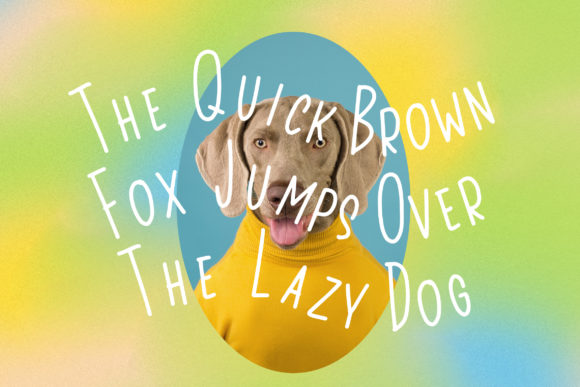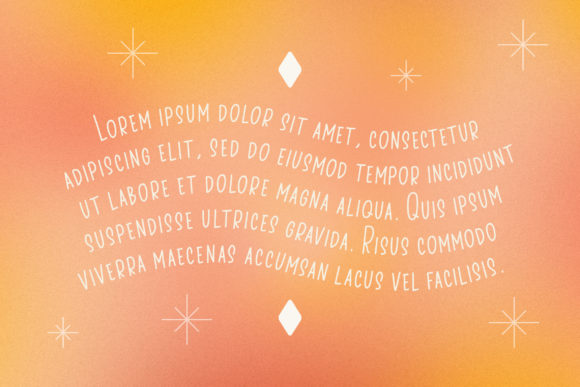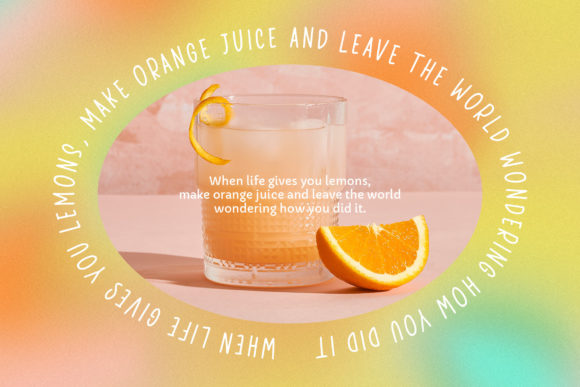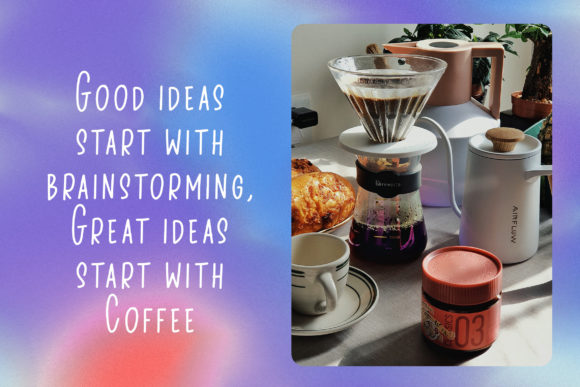
About Raccoon Font
Raccoon is a cute and simple lettered handwritten font that can be used for all chalkboard quotes or teaching material! Its authentic look will add a personal and realistic feel to your designs.